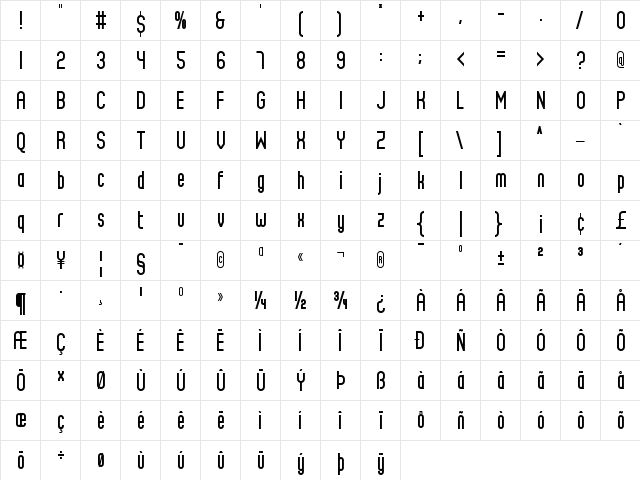
Albas Sans Regular
Design Context for Albas Sans Typeface
Albas Sans is a composed and adaptable typeface that performs quietly and consistently across a wide range of design contexts.